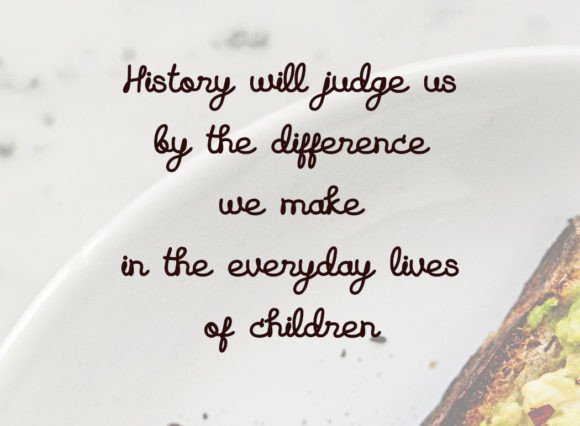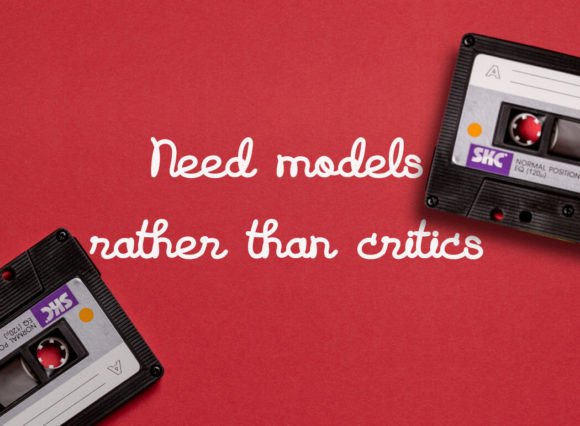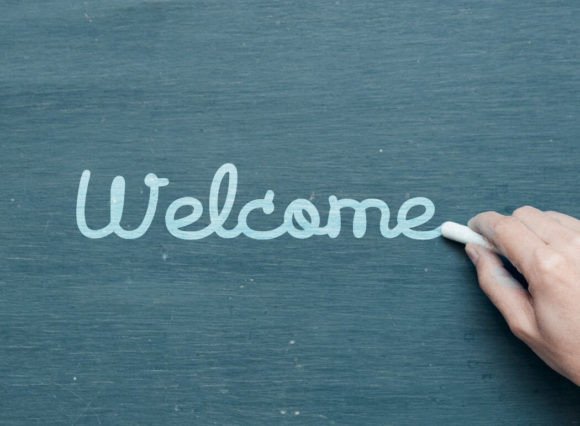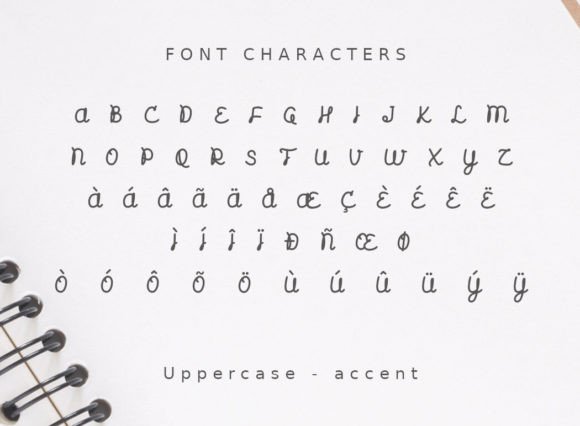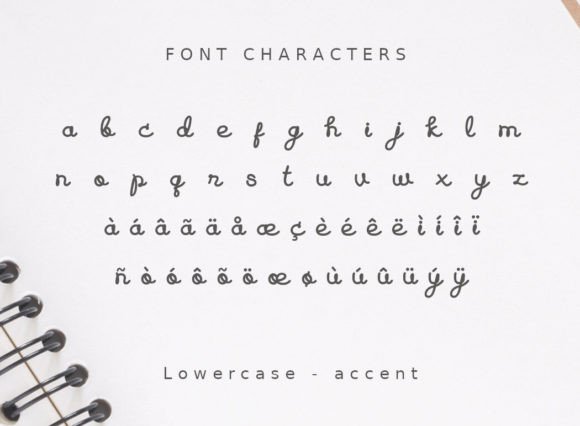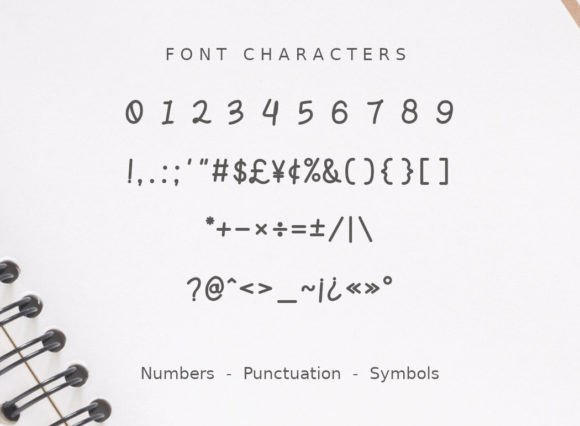
Introduction to Garapid Font
Garapid is a bold monoline handwritten script font with a casual and fresh look.
Suitable for wedding invitations, greeting cards, quotes, headers, or any design that needs a casual theme .